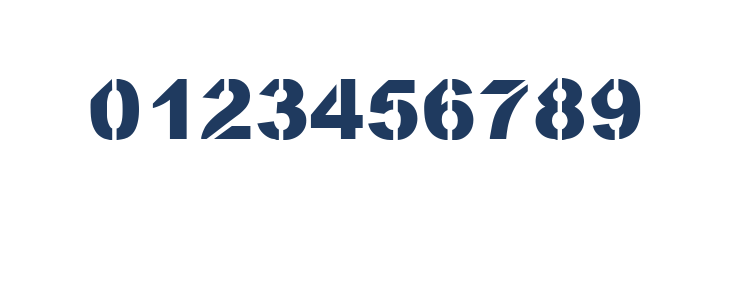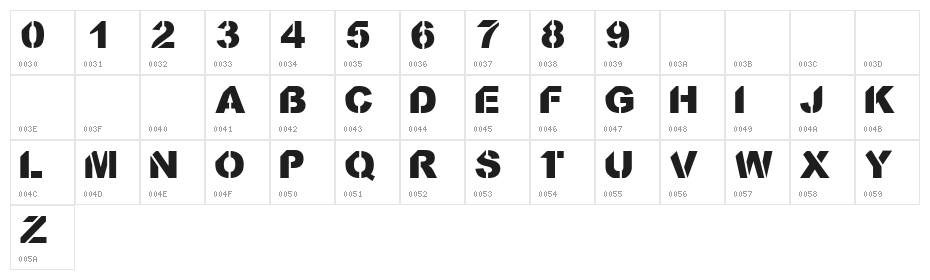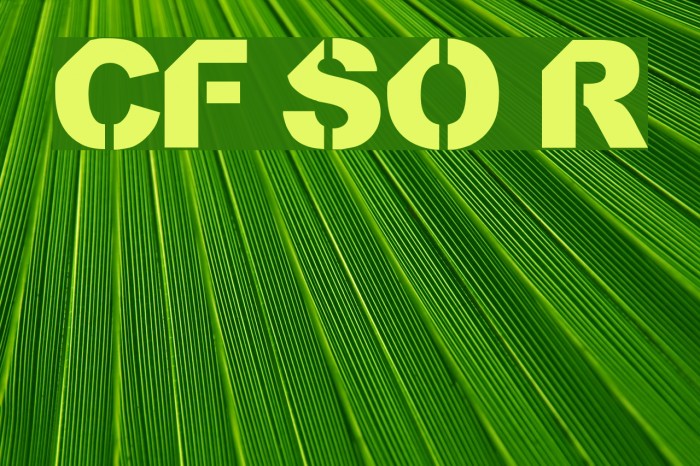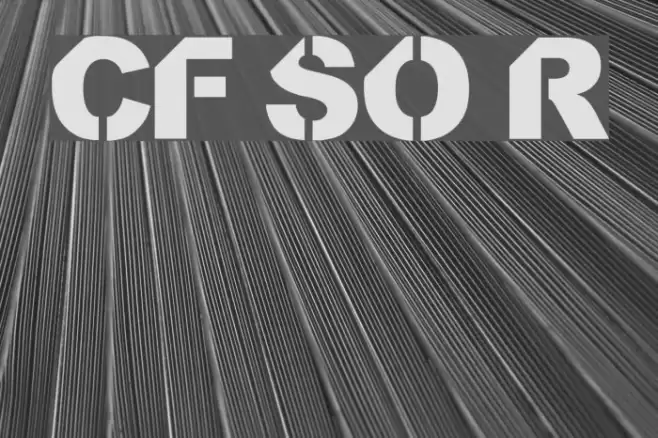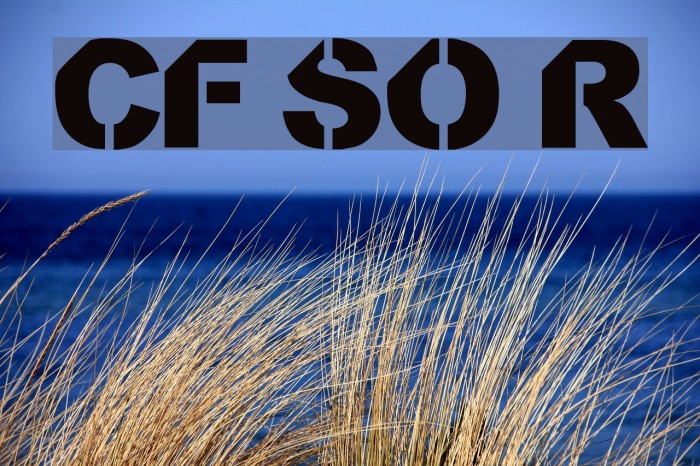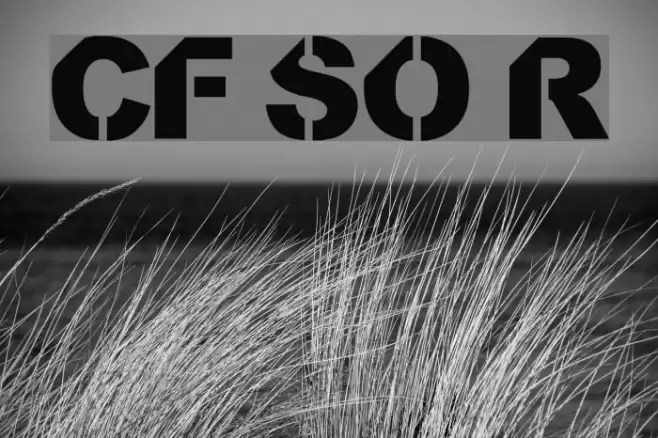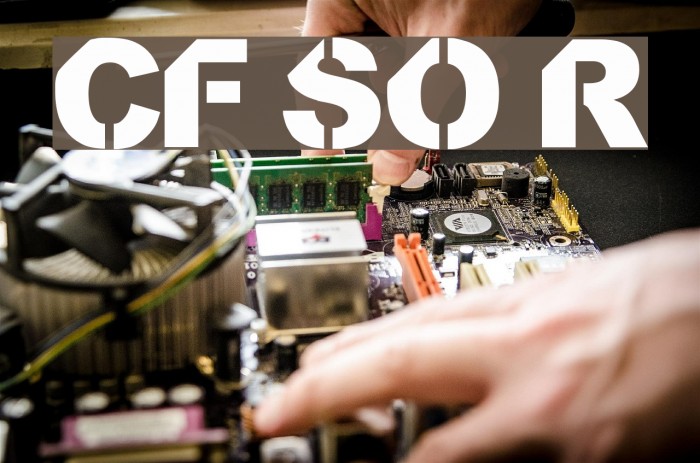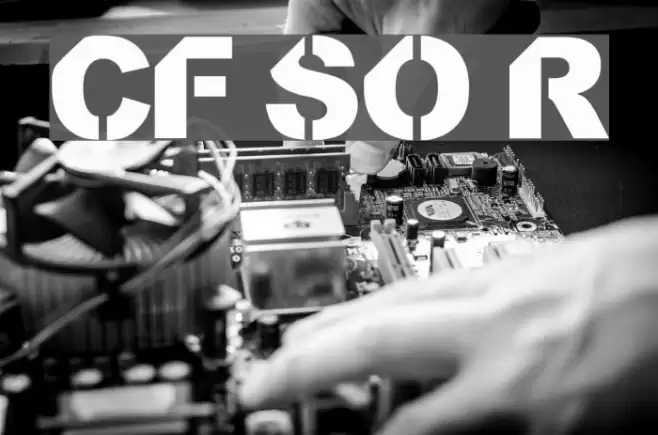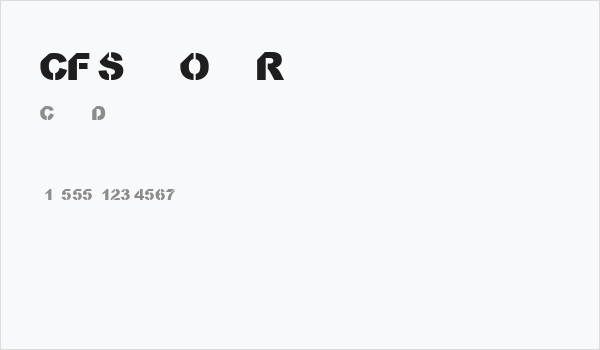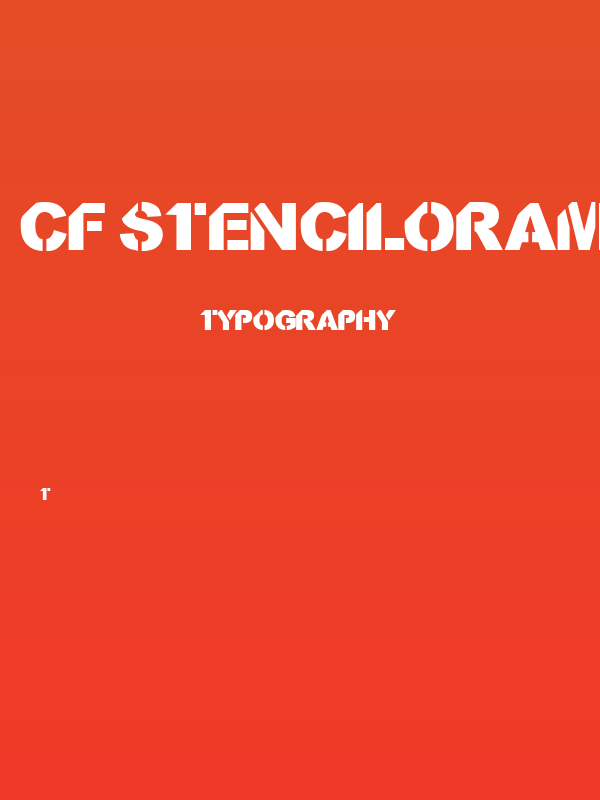
CF StencilOrama Regular Font
CF StencilOrama Regular Description
This font features a bold, stencil-like design with strong geometric shapes and clear cutouts, giving it a military or industrial feel. The uppercase letters are particularly striking, with consistent thickness and sharp angles that create a sense of strength and authority. The numbers follow the same design principles, ensuring uniformity across all characters. The font's distinct style makes it ideal for projects that require a bold statement or a rugged aesthetic.
| Overall Style | Industrial |
| Proposed Projects | Ideal for military-themed designs, industrial branding, posters, and signage. |